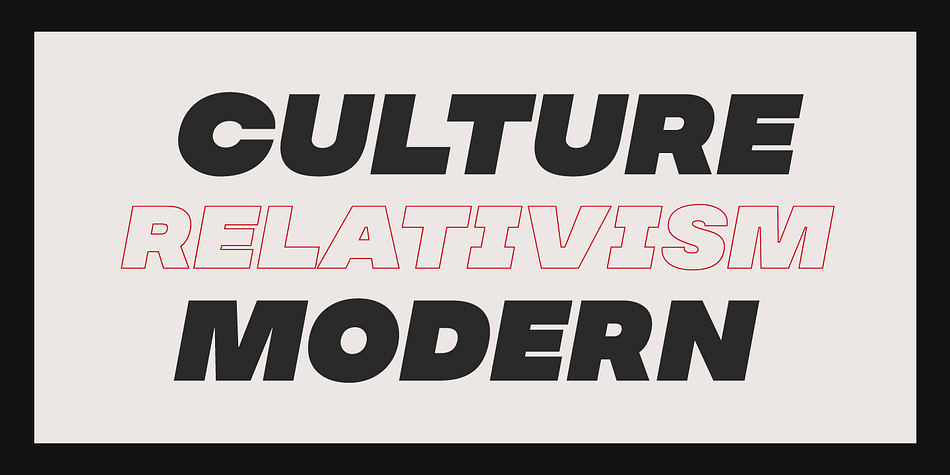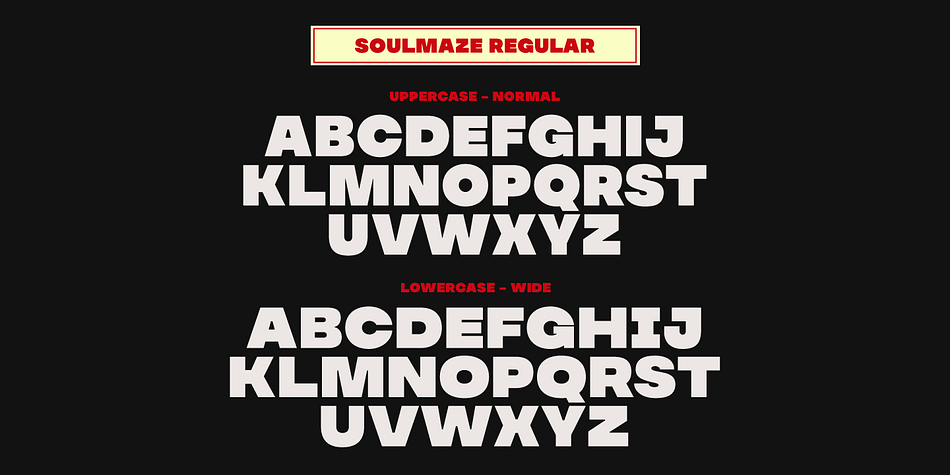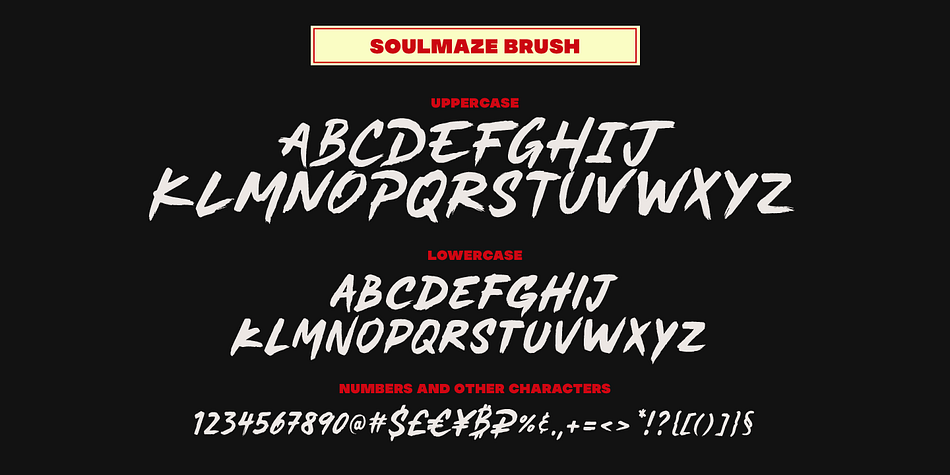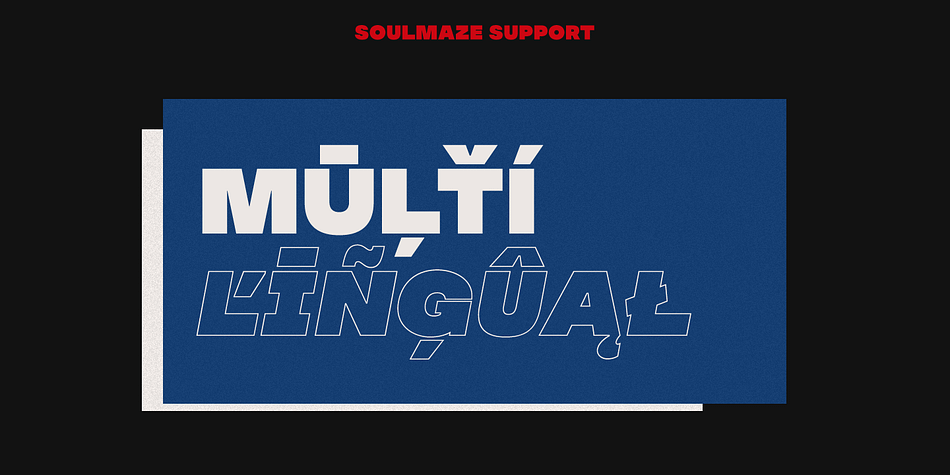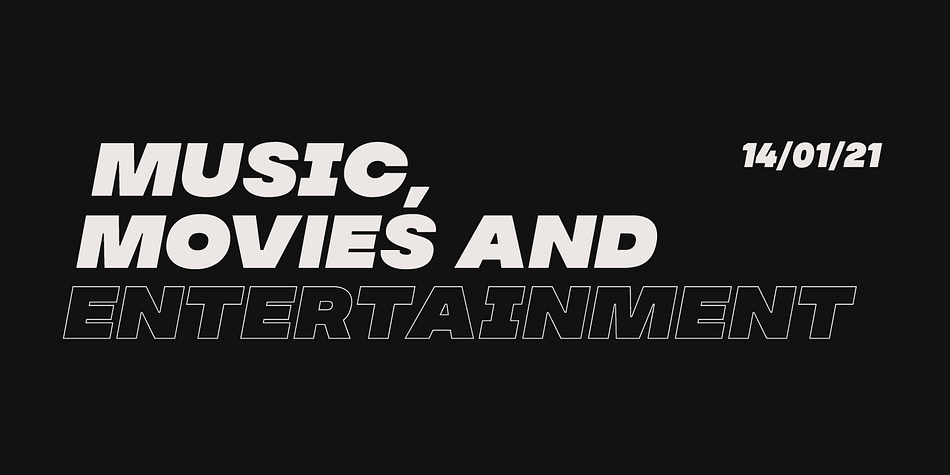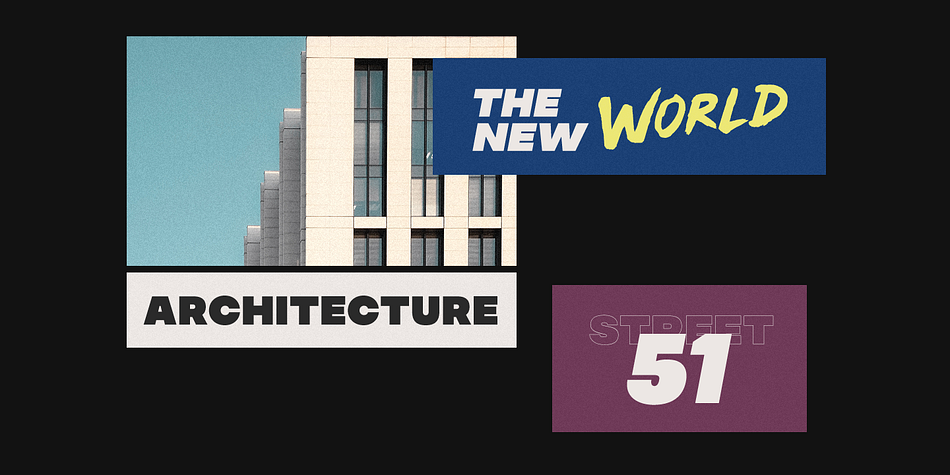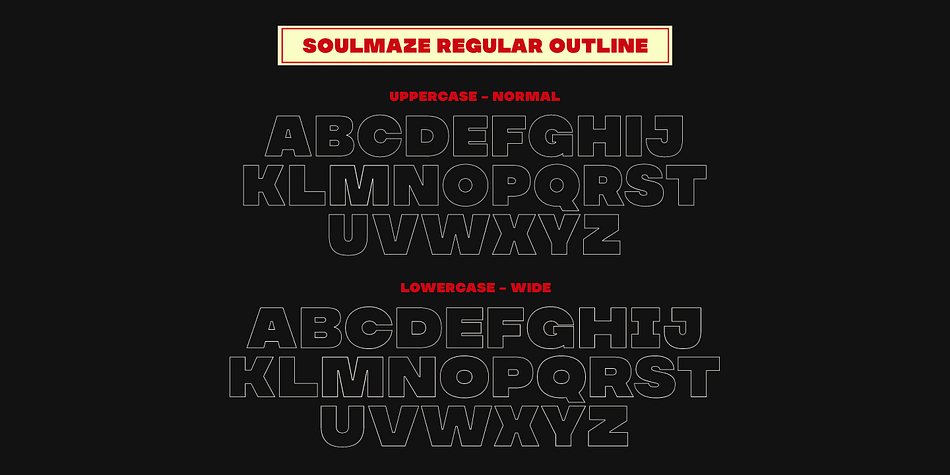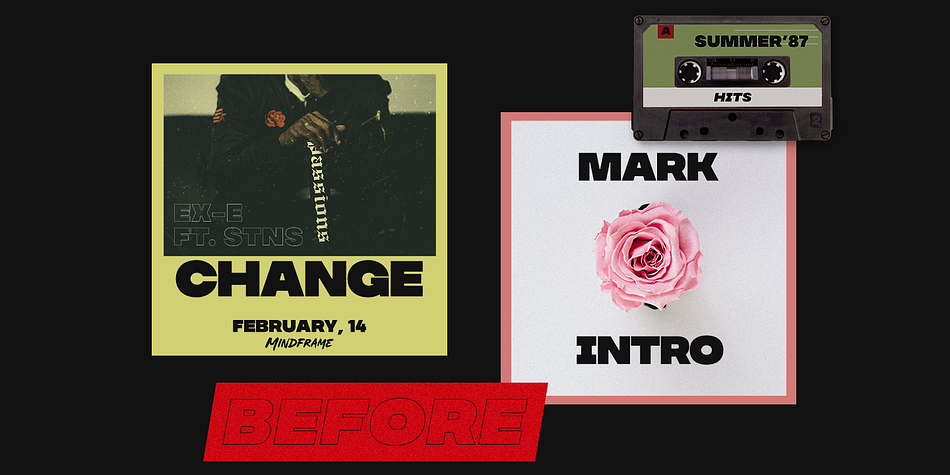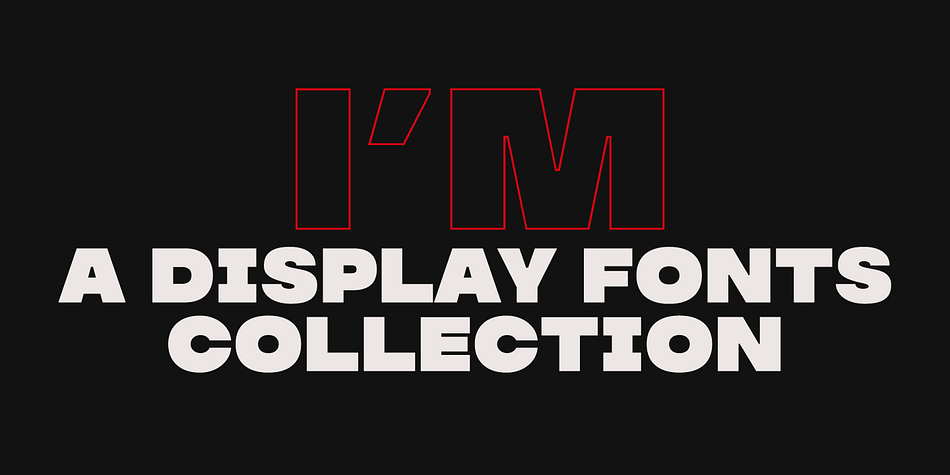
Designed by Maxim Schepin and Denis Schepin, MADE Soulmaze is a brush display and display sans font family. This typeface has five styles and was published by MadeType.
MADE Soulmaze is a display fonts collection. The collection includes 5 fonts.
Styles | Brush Display, Display Sans |
Designers | Maxim Schepin, Denis Schepin |